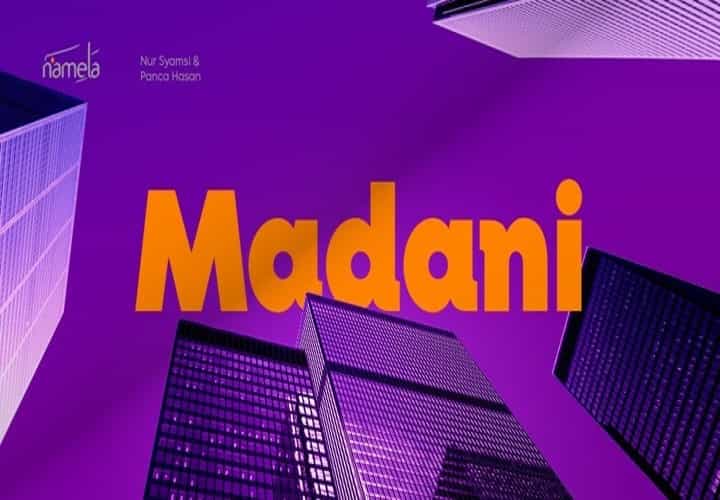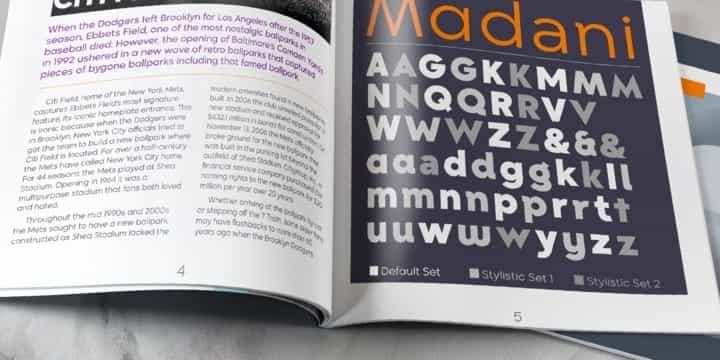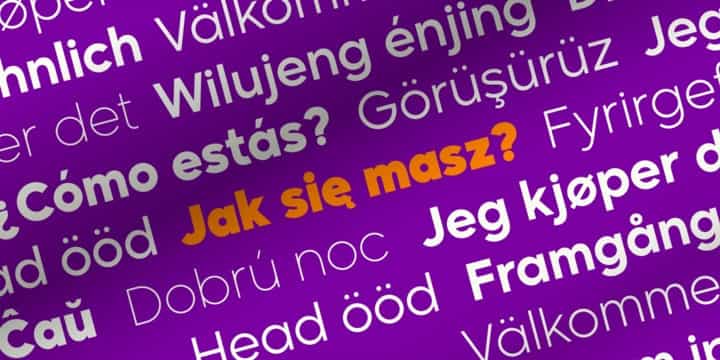
Madani is a reduced sans serif typeface that comes with Solid fonts. It is based on the small solid typeface by combining various styles. Suitable for Logo, greeting cards, quotes, posters, branding, name card, stationary, design title, blog header, art quote, typography.